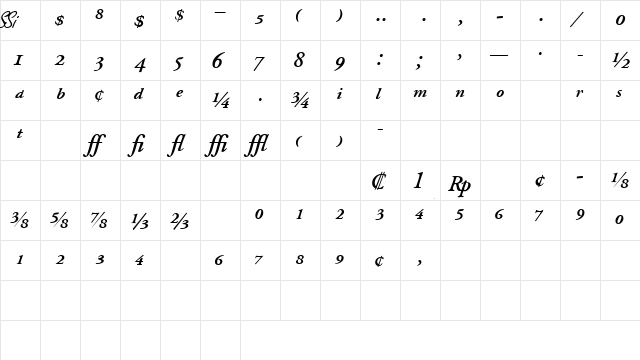
GaramondProSSK Bold Italic Font Preview
Design Context for GaramondProSSK Typeface
GaramondProSSK takes a measured approach to typography — its balanced proportions and neutral character make it a reliable workhorse for both digital and print work. The slanted form adds forward momentum and visual energy. Its bold stroke weight gives it real presence on the page.
Pro Tip: Try GaramondProSSK for annotation and caption copy alongside an upright companion — the contrast in angle creates a dynamic but ordered typographic system.